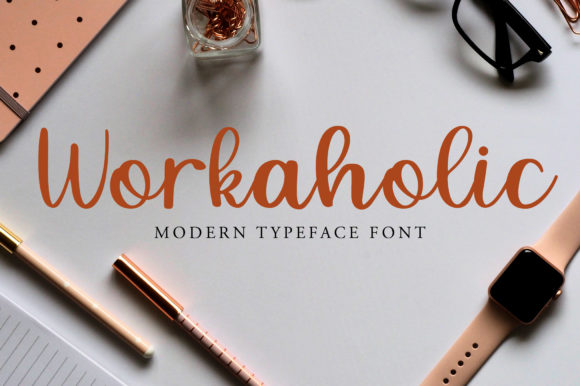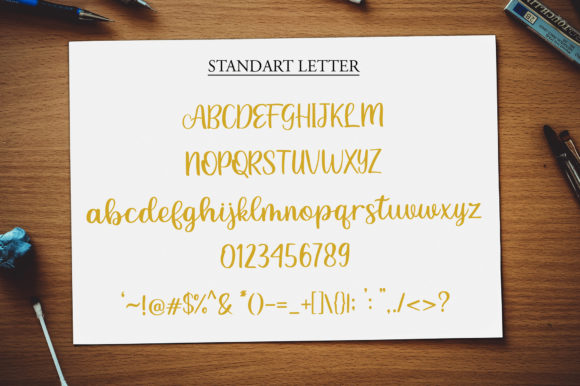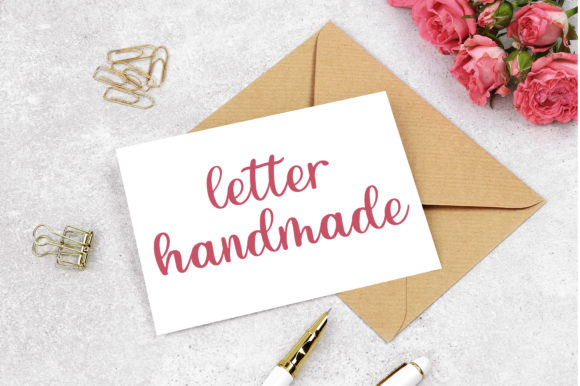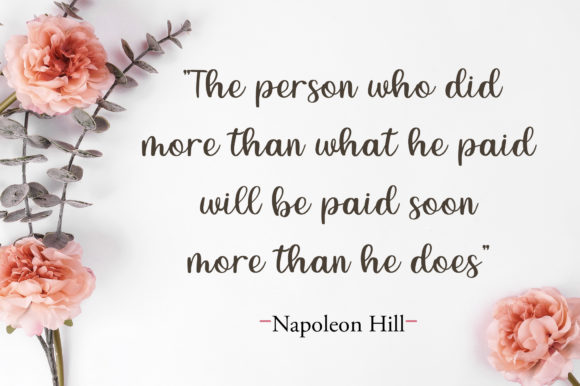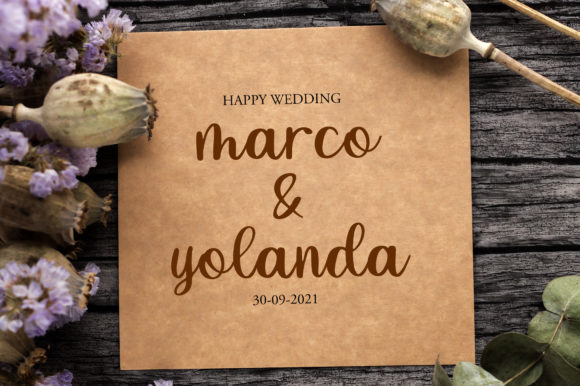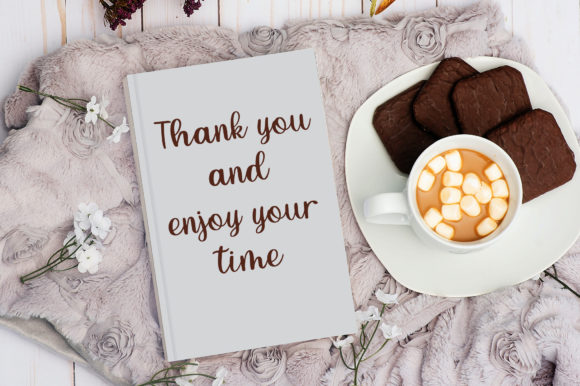
Workaholic  Font
About Workaholic  Font
Workaholic is a classic handwritten font. Simple and easy to use, this font will be very beautiful if you mix it with your various craft designs.